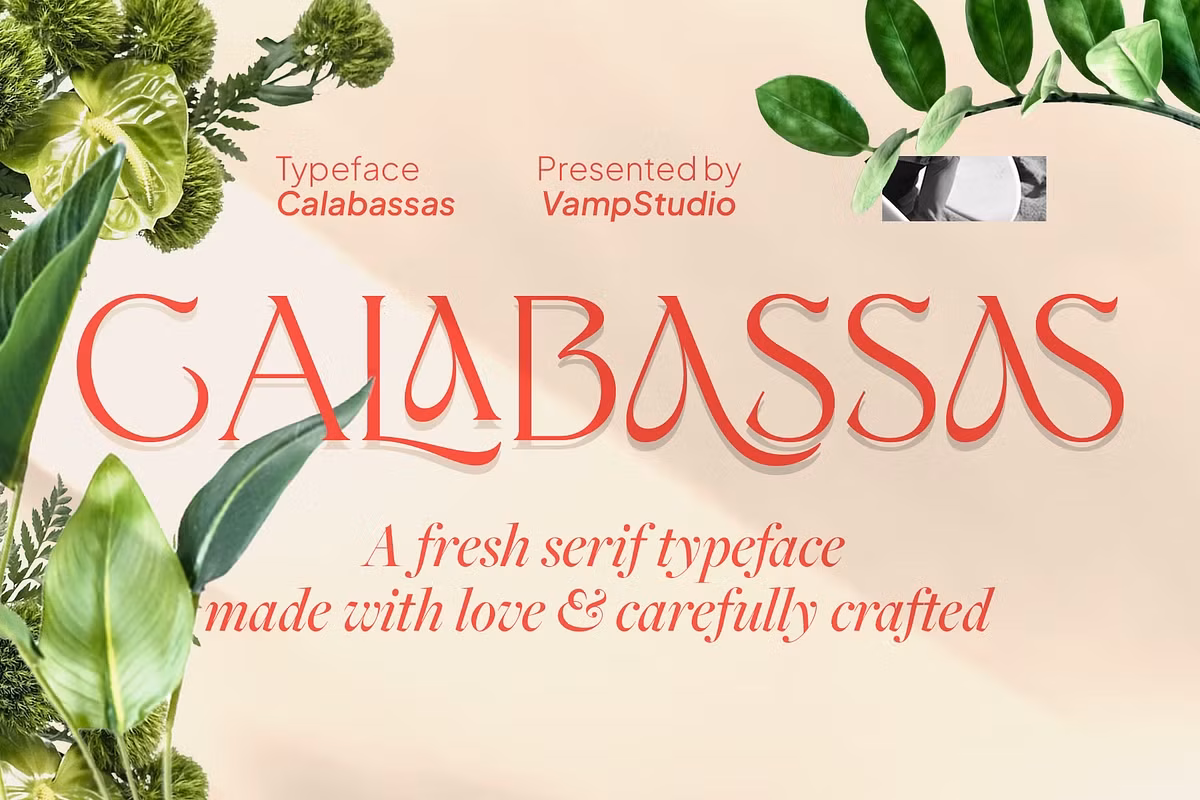
Calabassas Fresh Modern Serif Font Free Download is a sleek and contemporary serif typeface that combines classic elegance with a modern edge. Perfect for branding, editorial design, high-end logos, packaging, and more, this font brings a clean, sophisticated style to your typography.
With its sharp serifs, balanced proportions, and refined design, Calabassas Fresh adds a sense of professionalism while maintaining a fresh, modern feel. Its versatility makes it ideal for both large headlines and smaller body text, ensuring clarity and impact in any design application.